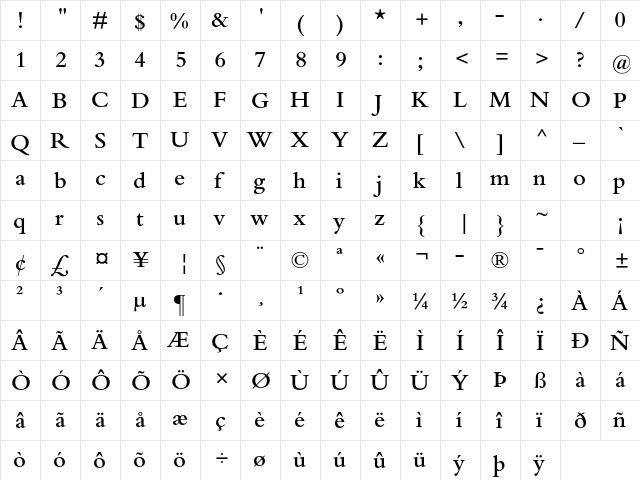
Bembo Std Semibold Font Preview
Bembo Std Semibold
Bembo Std Semibold Font Details
| Style | Semibold |
| Designer | Stanley Morison, Monotype Staff |
Design Context for Bembo Std Typeface
Bembo Std offers clean, dependable letterforms without strong stylistic allegiance, making it a practical choice for designers who need flexibility. Its bold stroke weight gives it real presence on the page.